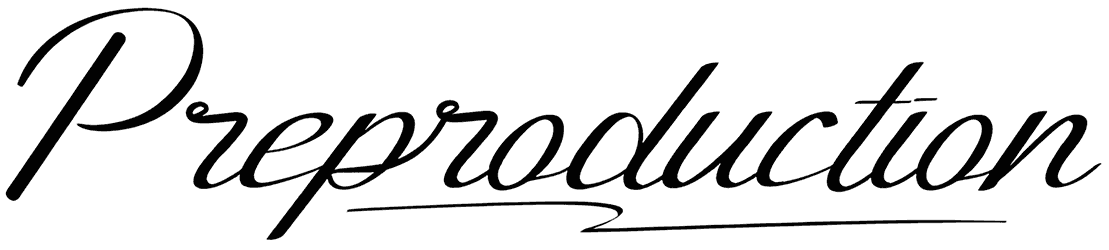
Preproduction Font
Preproduction is a magical calligraphy font that provides aesthetic without losing its solidity, thus it can be included in a huge set of graphic content ranging from business cards, brochures, logos, and headlines, to book covers.
Due to its accurate rounding and oblique characters, it has the real potential to add a sense of delicacy, softness, precision, and professionalism. Considering all its numerous advantages, the lack of numbers would be easily overlooked.